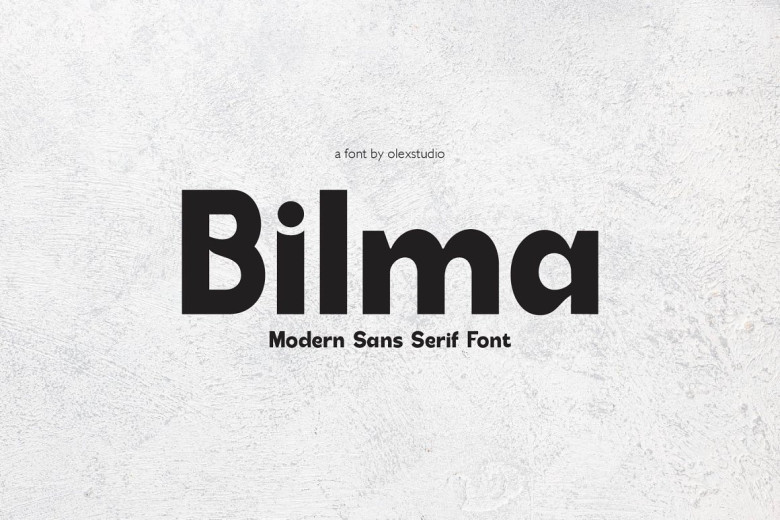
BILMA Font
Introducing BILMA – Sans Serif is a Modern Sans-Serif typeface font. BILMA – Sans Serif will be perfect for all your designs, design invitations, posters, book covers, branding materials, logos, t-shirt, and all other designs. This font comes with standard characters Uppercase, lowercase, numbers, punctuation, ligatures, and international glyphs. You will get OTF, TTF files & WEBFONT.
BILMA Sans Serif Font